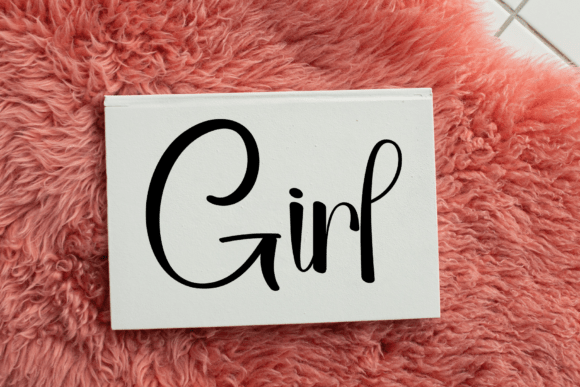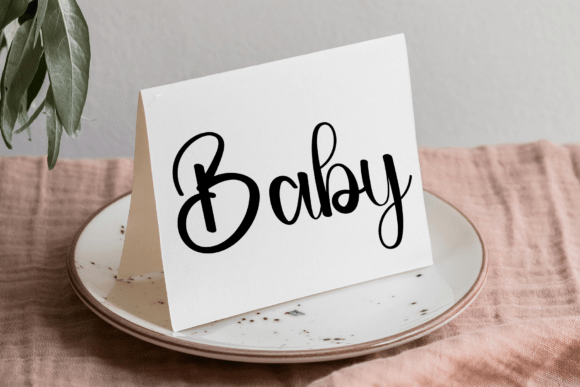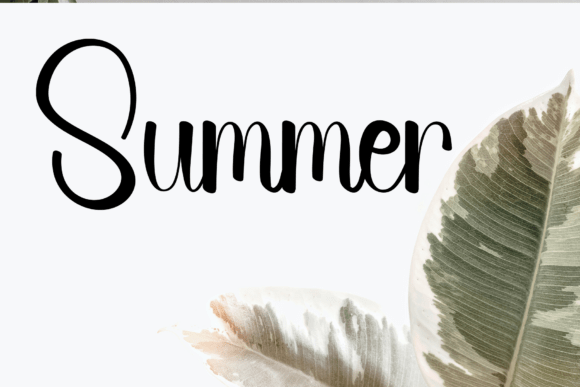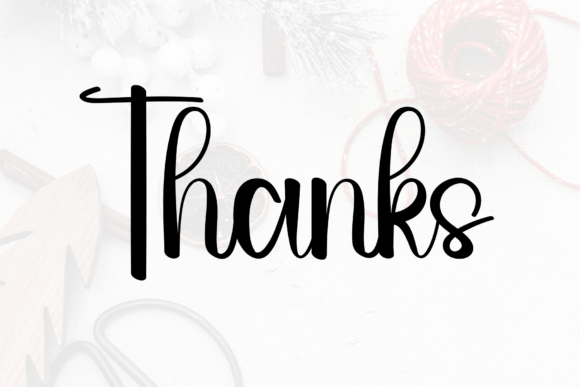
Introducing Delights Font: The Perfect Blend of Elegance and Casual Charm
Are you on the hunt for a font that exudes luxury, elegance, and a touch of casual flair? Look no further than Delights Font, a stunning handwritten font that is sure to elevate your designs to the next level. With its unique marker-drawn aesthetic, Delights Font is perfect for designers and crafters seeking to add a relaxed yet sophisticated touch to their work.
The Characteristics of Delights Font
Delights Font boasts a distinctive handwritten style that gives it a warm, personal feel. Its relaxed and sporty vibe makes it an excellent choice for a wide range of design applications, from branding and logos to wedding supplies, greeting cards, and marketing promotions. The font’s elegant yet casual demeanor ensures that it can seamlessly transition between various design contexts, making it a versatile addition to any designer’s toolkit.
What Makes Delights Font So Versatile?
One of the standout features of Delights Font is its incredible versatility. Its unique blend of elegance and casual charm makes it suitable for a diverse array of design projects, including:
- Branding and Logos: Create a lasting impression with a custom logo that showcases your brand’s personality and style.
- Wedding Supplies: Add a touch of whimsy and romance to your wedding designs, from invitations to stationery.
- Greeting Cards: Make your cards stand out with a font that’s both personal and sophisticated.
- Fashion and Lookbooks: Elevate your fashion designs with a font that exudes style and sophistication.
- Marketing Promotions: Create eye-catching promotional materials that capture the attention of your target audience.
The Benefits of Using Delights Font
So, why choose Delights Font for your design projects? Here are just a few benefits of incorporating this beautiful font into your work:
- Unique Aesthetic: Delights Font offers a distinctive marker-drawn style that sets it apart from more traditional fonts.
- Flexibility: With its relaxed and sporty feel, Delights Font can be used in a wide range of design contexts.
- Elegance and Sophistication: Add a touch of luxury to your designs with a font that’s both refined and elegant.
- Casual Charm: Delights Font’s casual vibe makes it perfect for designers seeking to create a more approachable, laid-back feel.
Tips for Using Delights Font Effectively
To get the most out of Delights Font, here are a few tips to keep in mind:
- Experiment with Pairings: Combine Delights Font with other fonts to create a unique and visually appealing typography scheme.
- Play with Size and Color: Don’t be afraid to experiment with different font sizes and colors to add depth and interest to your designs.
- Use it for Headlines and Titles: Delights Font is perfect for headlines and titles, where its elegant and sophisticated style can really shine.